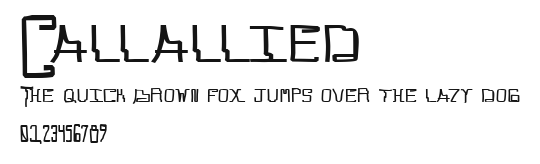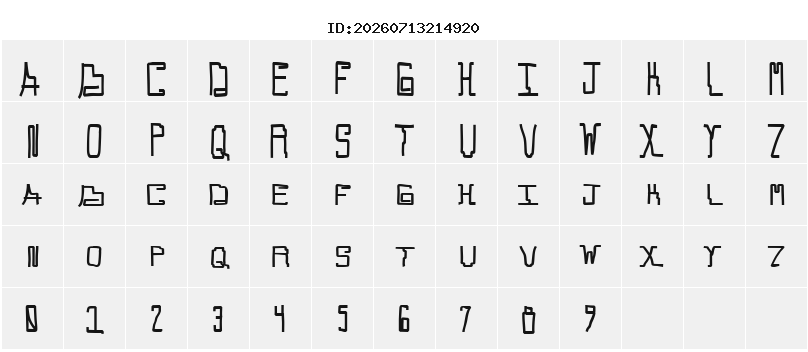
• Font Name: Callallied
• Font ID: Callallied
• Full Font Name: Callallied
• Version: 1.0 of this hand tooled font
• PostScript Name: Callallied
• Character Count: 220
About Callallied.ttf
Callallied.ttf is a modern, elegant sans-serif font designed for ultimate readability and visual harmony. Perfect for branding, headlines, web design, and print materials.